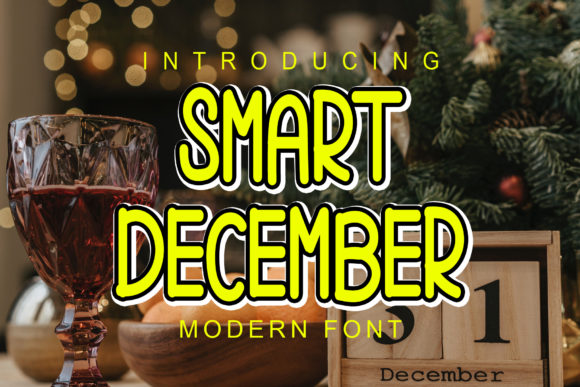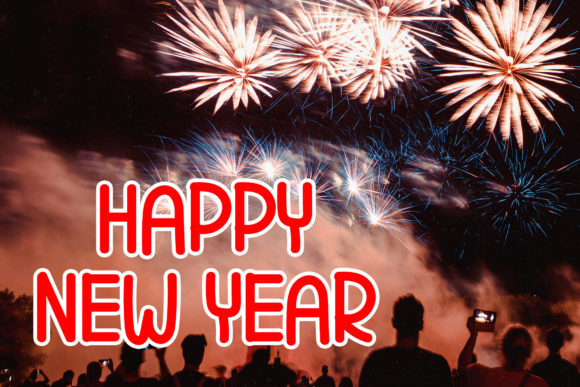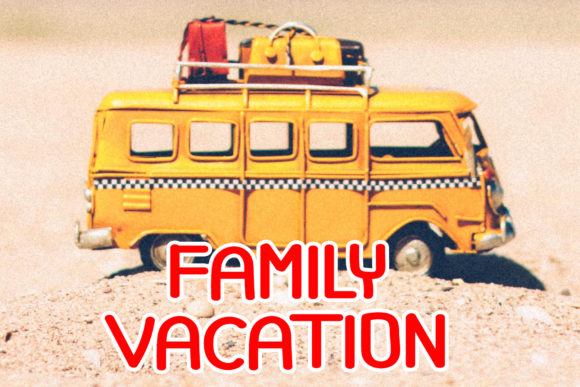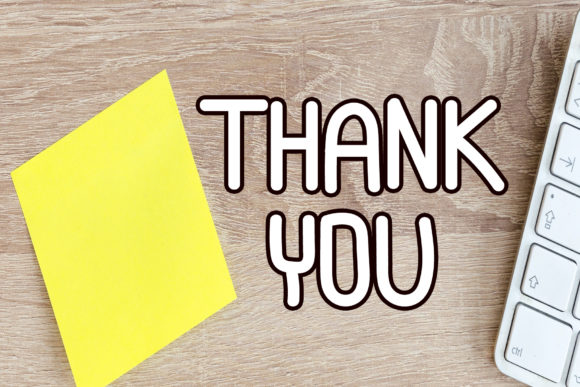
Smart December Font
About Smart December Font
Smart December is a flowing and festive handwritten font. Designed to become a top choice, this font has the potential to bring each of your creative ideas to the highest level!